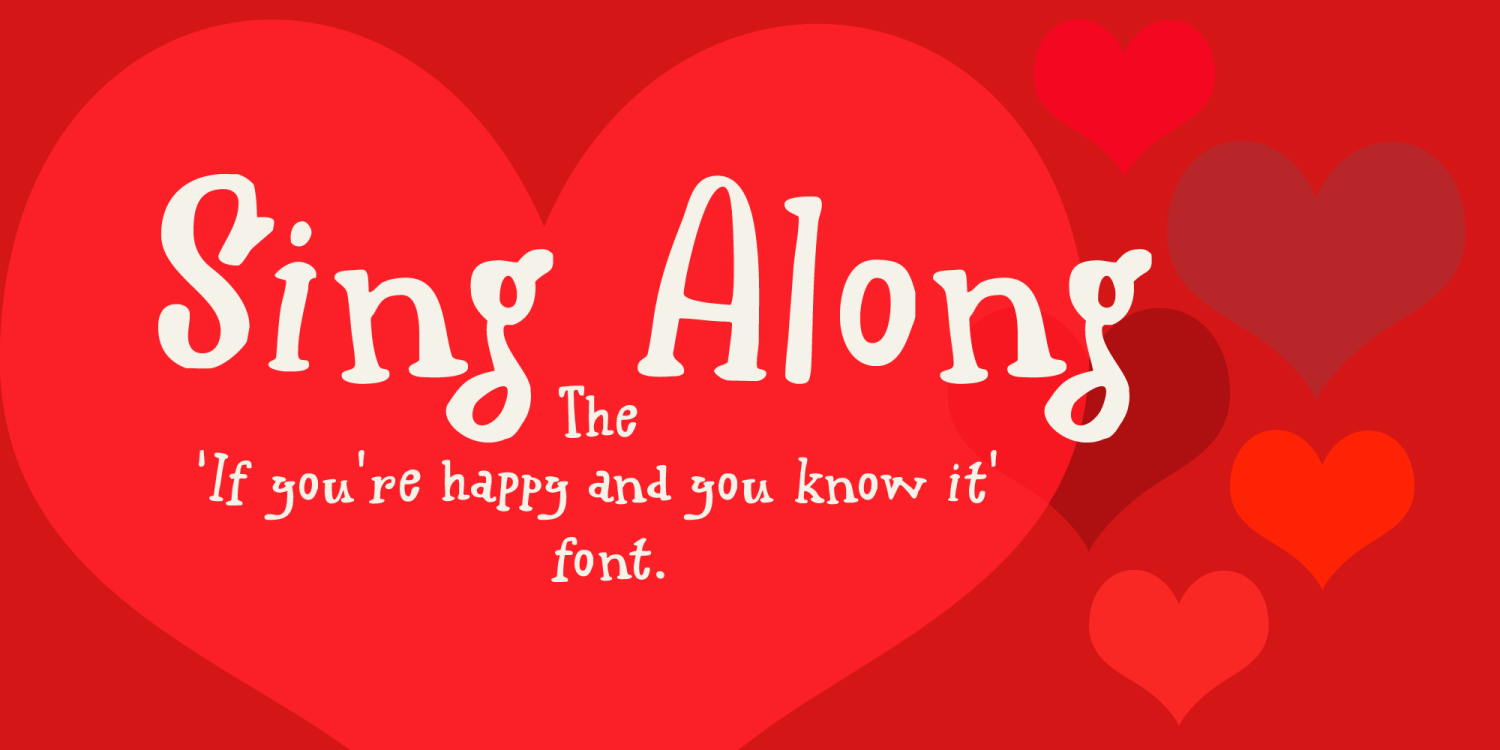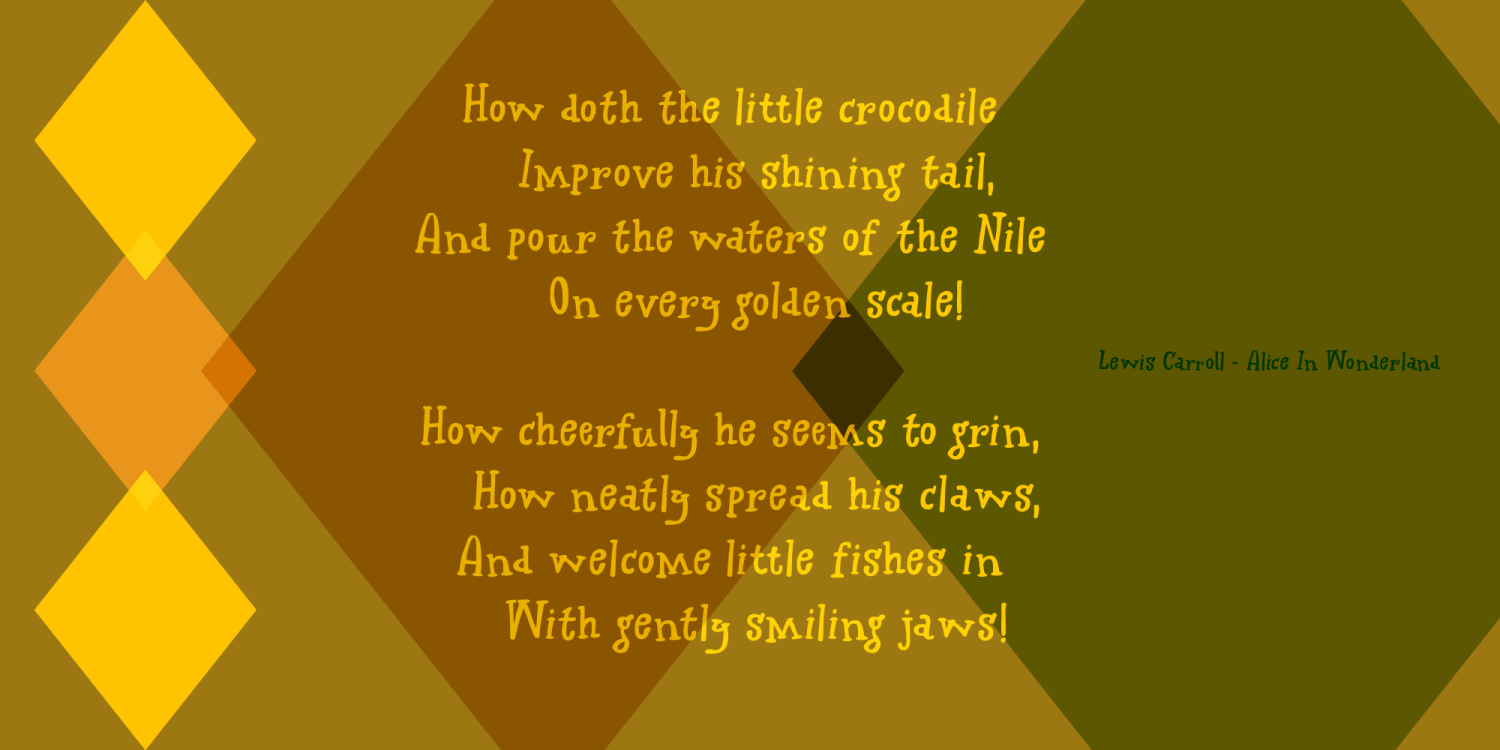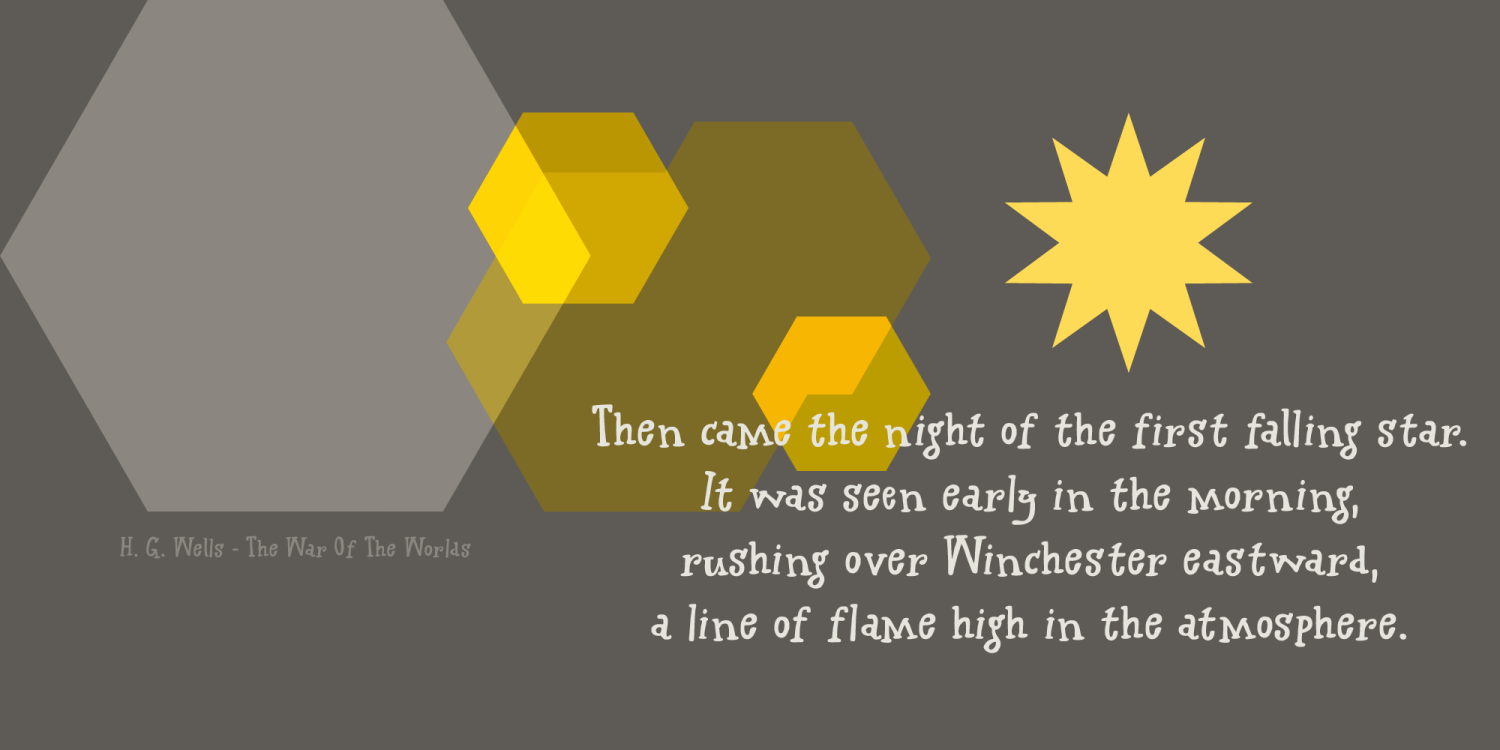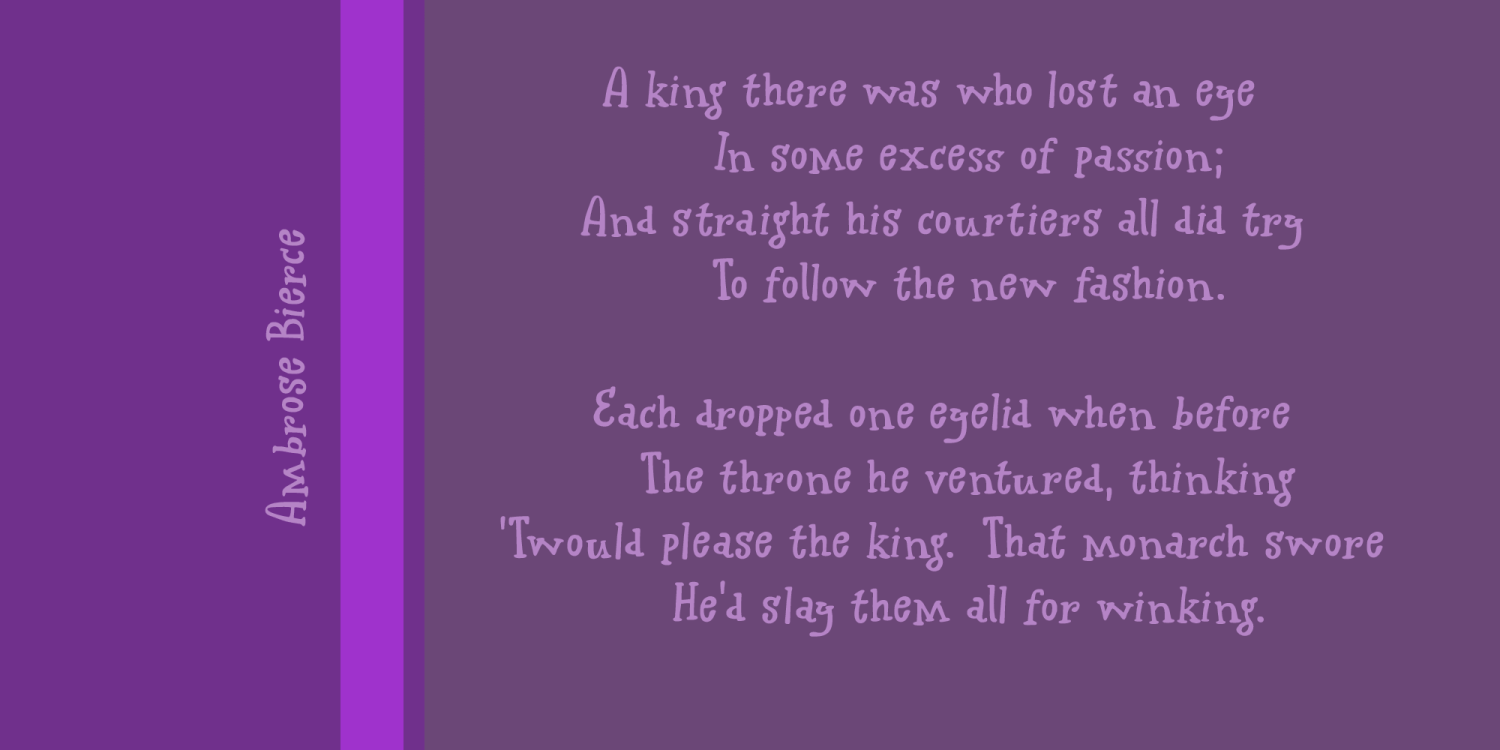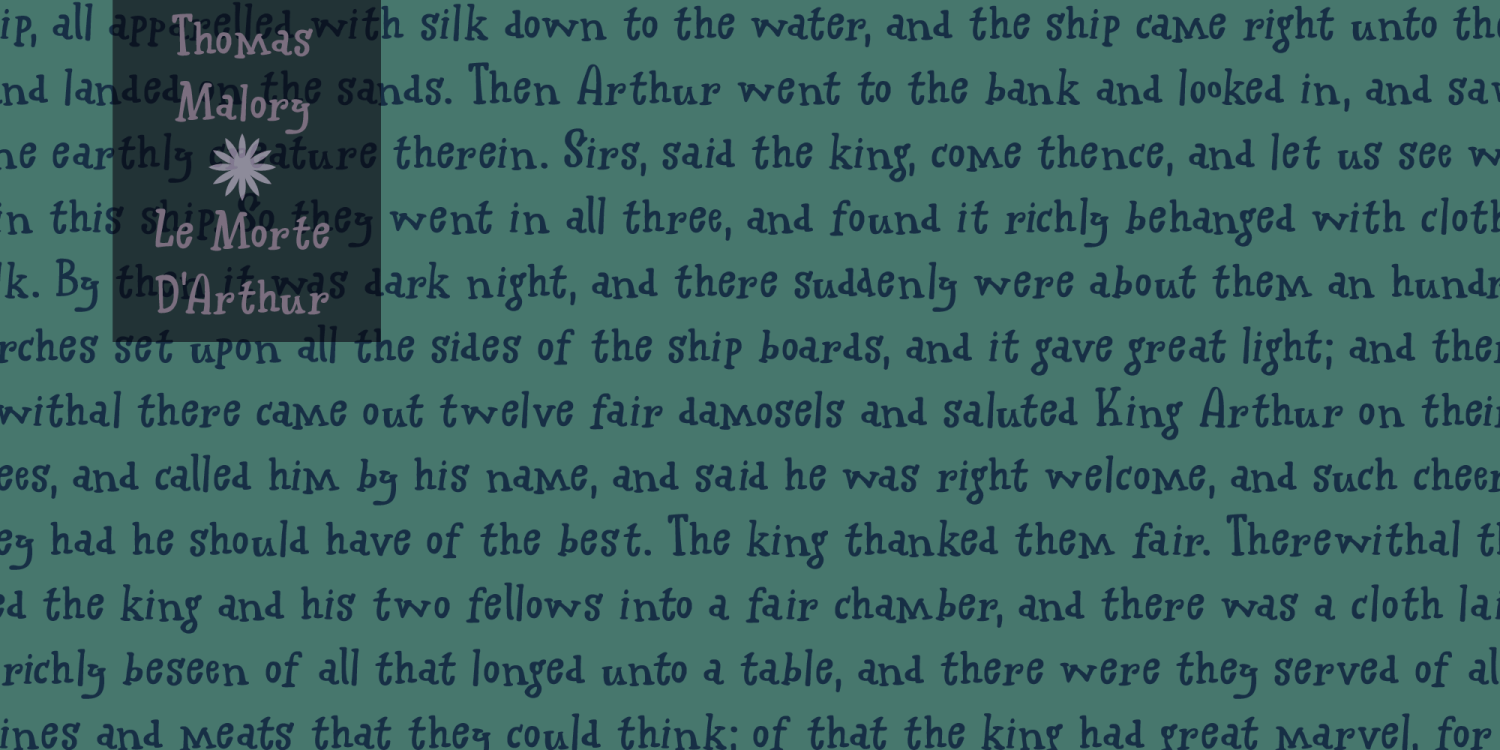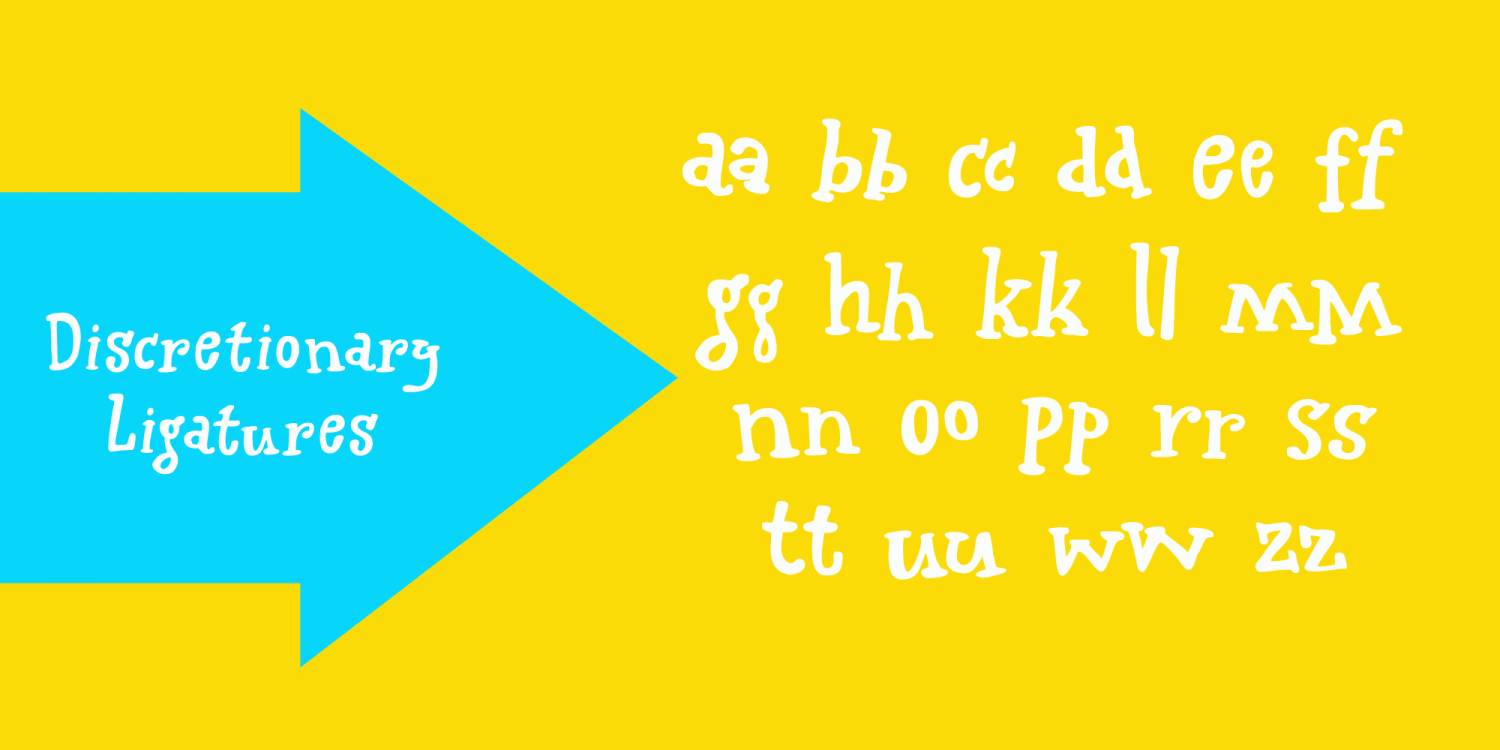
Sing Along
We just had the Eurovision Song Contest here in Holland. I quite like to watch it, as it is usually a freak show of kitsch, political incorrectness and often really bad music. But it is a laugh and this year was no different.
It inspired me to create this particular font with this particular name.
Sing Along is a happy, wobbly, kitschy font that comes with a bit of ?over-the-topness?, a few personality issues and an unsteady gait. Needless to say, it is politically incorrect, but that, my friends, is not necessarily a bad thing.